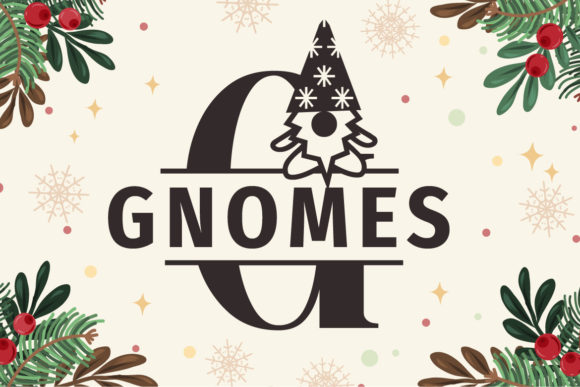
In a world of digital monotony, Gnomes Monogram rises as a beacon of elegance and creativity. This delicate and uniquely decorative font family is a visual masterpiece, designed to add a touch of charm and sophistication to any project. Embrace the artistry of Gnomes Monogram, and let your words dance with grace and allure.
Picture this: a wedding invitation adorned with the flowing letters of Gnomes Monogram, each stroke a testament to the love and joy of the occasion. The intricate details and charming curves of this font transform ordinary words into an exquisite work of art. Imagine your cherished love letters, penned with the tender touch of Gnomes Monogram, conveying your deepest emotions with unparalleled elegance.
Let your design ideas flourish with the versatility of Gnomes Monogram. Whether you're crafting social media posts, creating eye-catching logos, or designing stunning posters, this font family effortlessly elevates your creations. Its delicate lines and whimsical flourishes add a touch of enchantment to any project, leaving a lasting impression on your audience.
With Gnomes Monogram, you'll unlock a treasure trove of creative possibilities. Its seamless integration with various design software ensures effortless use, making it the perfect choice for both seasoned designers and those just starting their creative journey. Unleash your imagination and witness the transformative power of Gnomes Monogram as it breathes life into your digital designs.
So, dear creative souls, embrace the magic of Gnomes Monogram. Let its delicate strokes ignite your passion, inspire your designs, and leave an enduring legacy of beauty in your digital creations. Download Gnomes Monogram today and embark on a journey of artistic expression that will captivate and inspire.